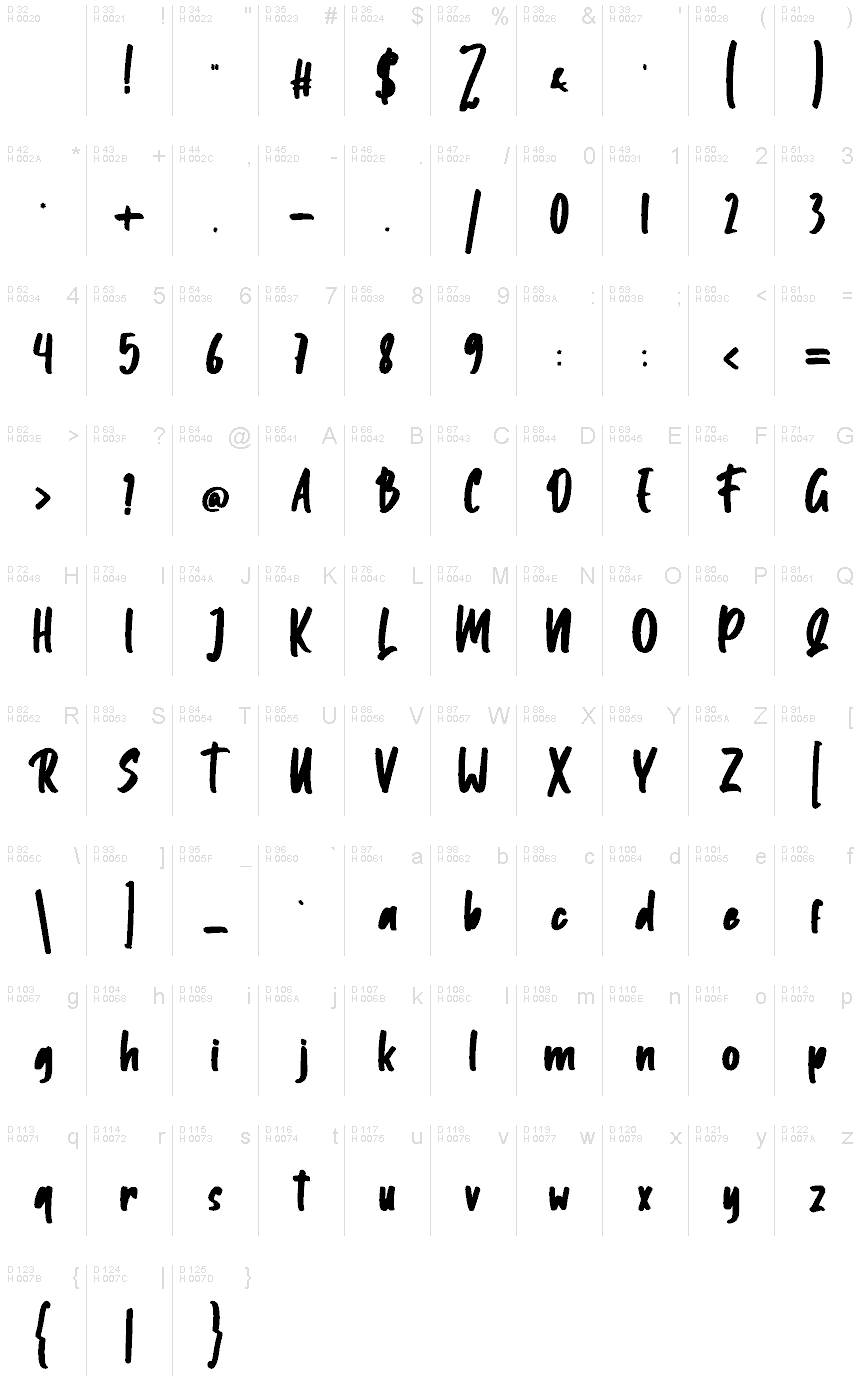
Fournite
Fournite font is a bold, condensed, expressive, and energetic typeface designed by Skiiller Studio. This brush font showcases a vibrant graphical style within every letter of its alphabet and connects perfectly to achieve an elegant line suitable for long texts. Its authenticity and visual attractiveness make it perfect for all professional usages.
Use Fournite in logo design, branding projects, packaging and labeling designs, banners, advertisements in magazines or newspapers; on t-shirts or other items of clothing; on television or any digital display channel such as social media platforms!